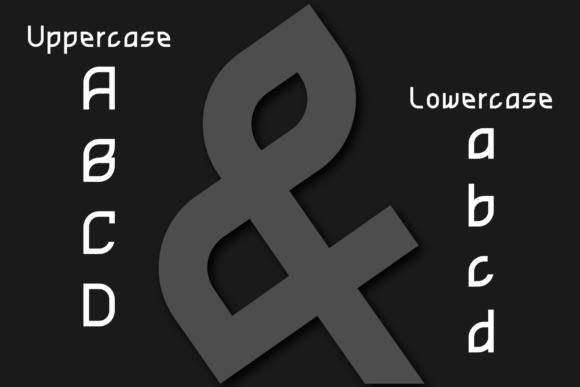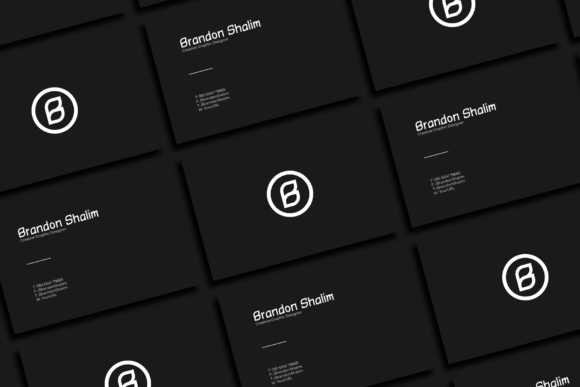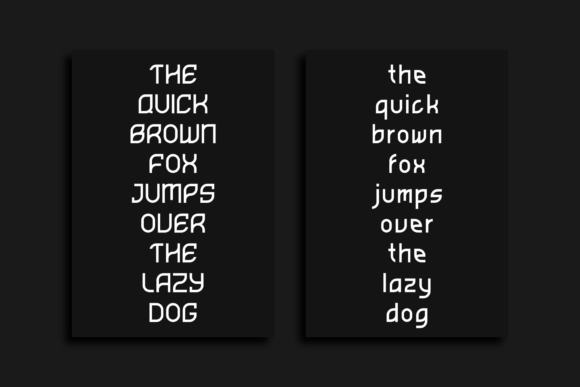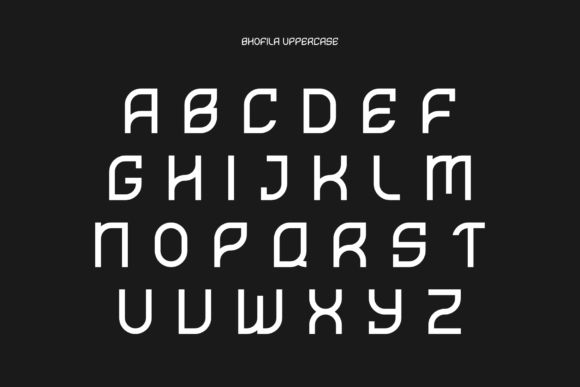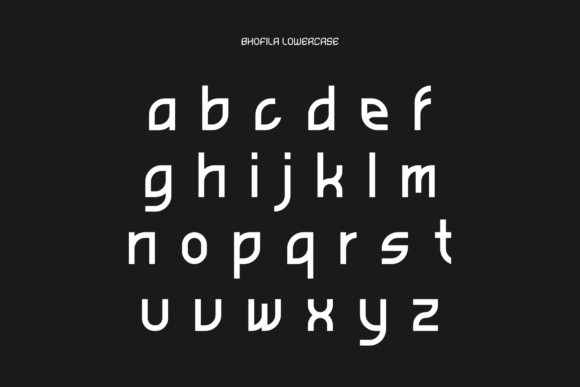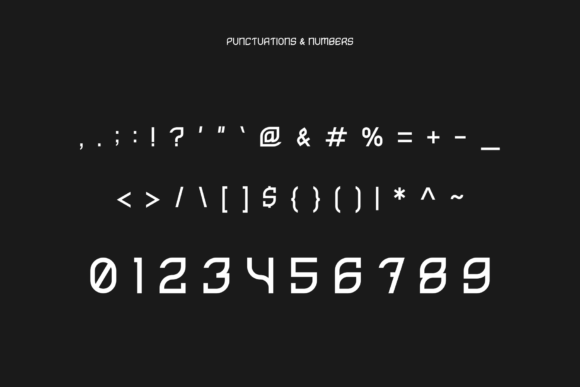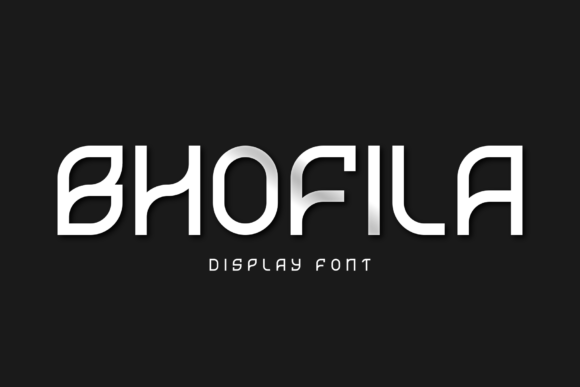
Bhofila Font: A Quirky and Versatile Display Font for Creative Projects
Bhofila is a unique and interesting display font that has been gaining popularity among designers and crafters. A little bit quirky, this font looks incredibly adept on a wide variety of contexts, making it a versatile addition to any creative project. In this article, we’ll explore the features and benefits of Bhofila font, and why it’s becoming a go-to choice for designers and crafters alike.
What is Bhofila Font?
Bhofila font is a display font that stands out from the crowd with its distinctive and quirky design. Its unique shape and structure make it perfect for adding a touch of personality to any design project. Whether you’re working on a logo, poster, or social media graphic, Bhofila font is sure to grab attention and leave a lasting impression.
Key Features of Bhofila Font
- Unique and Quirky Design: Bhofila font boasts a one-of-a-kind design that’s sure to set your project apart from the rest.
- Versatile: This font can be used in a wide range of contexts, from logos and posters to social media graphics and more.
- Highly Legible: Despite its quirky design, Bhofila font is highly legible, making it perfect for use in both digital and print materials.
- Customizable: Bhofila font comes with a range of customization options, allowing you to tailor it to your specific design needs.
Benefits of Using Bhofila Font
So why choose Bhofila font for your next design project? Here are just a few benefits of using this versatile and quirky font:
- Adds Personality to Your Design: Bhofila font is the perfect way to add a touch of personality to your design project. Its unique design ensures that your project will stand out from the crowd.
- Perfect for Creative Projects: Whether you’re working on a logo, poster, or social media graphic, Bhofila font is perfect for creative projects that require a bit of flair.
- Easy to Read: Despite its quirky design, Bhofila font is highly legible, making it perfect for use in both digital and print materials.
- Great for Branding: Bhofila font is a great choice for branding projects, as its unique design can help to create a memorable and recognizable brand identity.
How to Use Bhofila Font in Your Design Project
Using Bhofila font in your design project is easy. Here are a few tips to get you started:
- Pair it with a Simple Font: Bhofila font works best when paired with a simple font. Try pairing it with a clean sans-serif font for a striking contrast.
- Experiment with Colors: Bhofila font looks great in a range of colors. Experiment with different colors to find the perfect combination for your design project.
- Use it for Headings: Bhofila font is perfect for use in headings and titles. Its unique design ensures that your headings will stand out from the rest of your design.
Bhofila font is a unique and interesting display font that’s perfect for creative projects. Its quirky design and high legibility make it a versatile addition to any design project. Whether you’re working on a logo, poster, or social media graphic, Bhofila font is sure to grab attention and leave a lasting impression. So why not give it a try and see how it can elevate your design project?
So there you have it – a comprehensive guide to Bhofila font. Whether you’re a designer or crafter, Bhofila font is a great choice for adding a touch of personality to your design project.